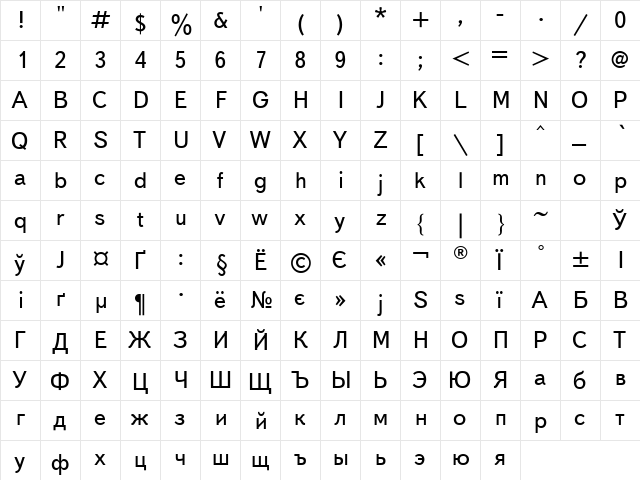
ft67 Regular
Design Context for ft67 Typeface
ft67 takes a measured approach to typography — its balanced proportions and neutral character make it a reliable workhorse for both digital and print work.